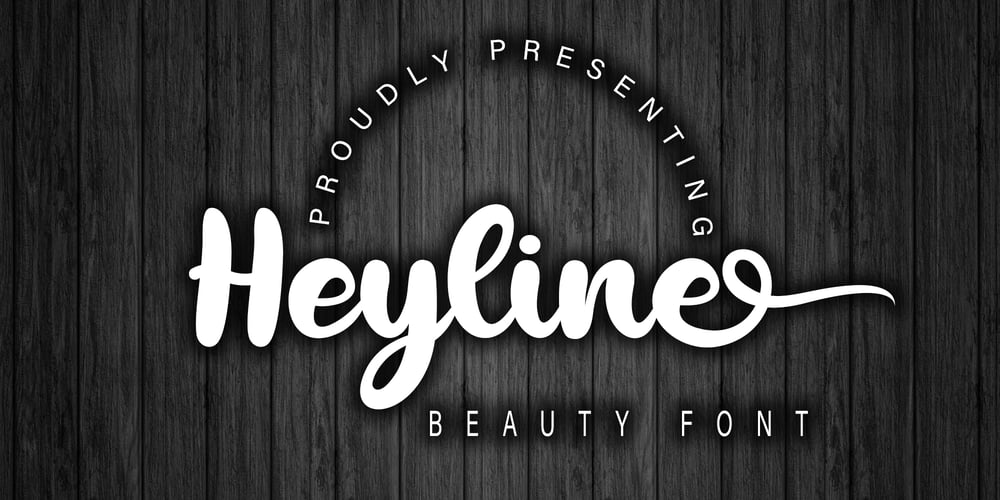
Heyline Font Family was designed by Irfan Mahmudin and published by Skiiller Studio. Heyline contains 1 styles and family package options. Heyline is a beautiful and beautiful script type script designed with a neat concept, there are also alternative opentype features, even businesses, companies, clothing, and much moreWhat’s include:more than 250+ of glyphsLigatureStylistic alternate for lowercaseStylistic set for EndingPUA Encoded Characters – Fully accessible without additional design software.Basic Latin Language Support (AÀÁÂÃÄÅCÇDÐEÈÉÊËIÌÍÎÏÑOØÒÓÔÕÖUÙÜÚÛWYÝŸÆß )